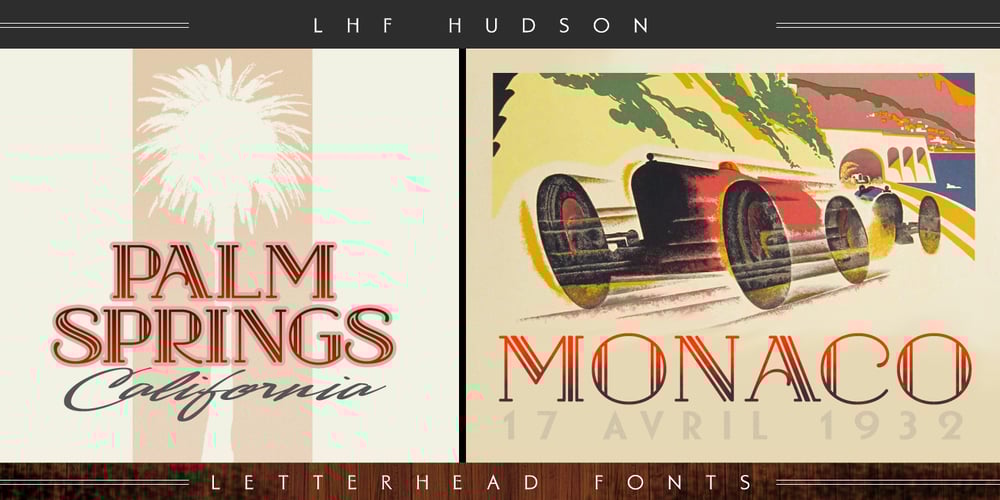
LHF Hudson
LHF Hudson font
LHF Hudson Font Family was designed by Kaitlin Sims and published by Letterhead Fonts. LHF Hudson contains 2 styles and family package options. This set features 2 distinctive fonts, each with multiple alternates and useful ornaments. Inspired by 20’s era lettering artist Samuel Welo, the rounded serifs and delicate strokes set this Art Deco style apart.